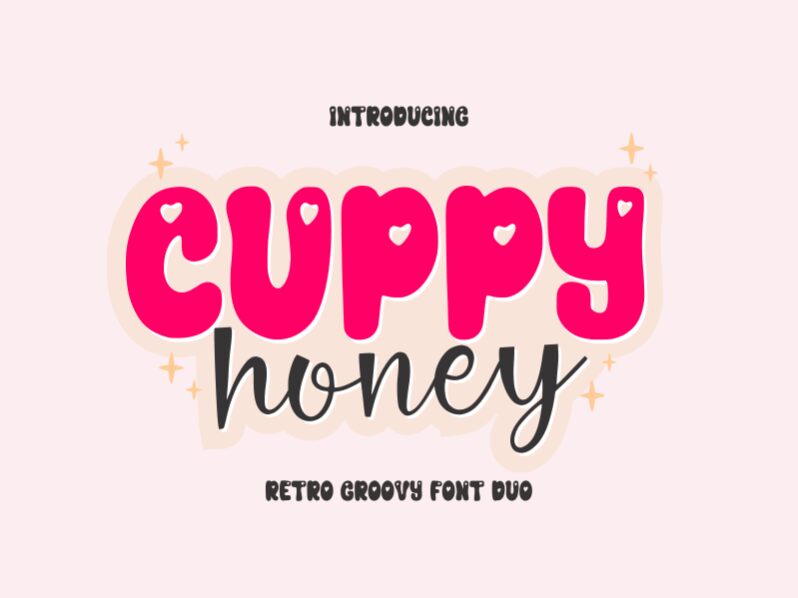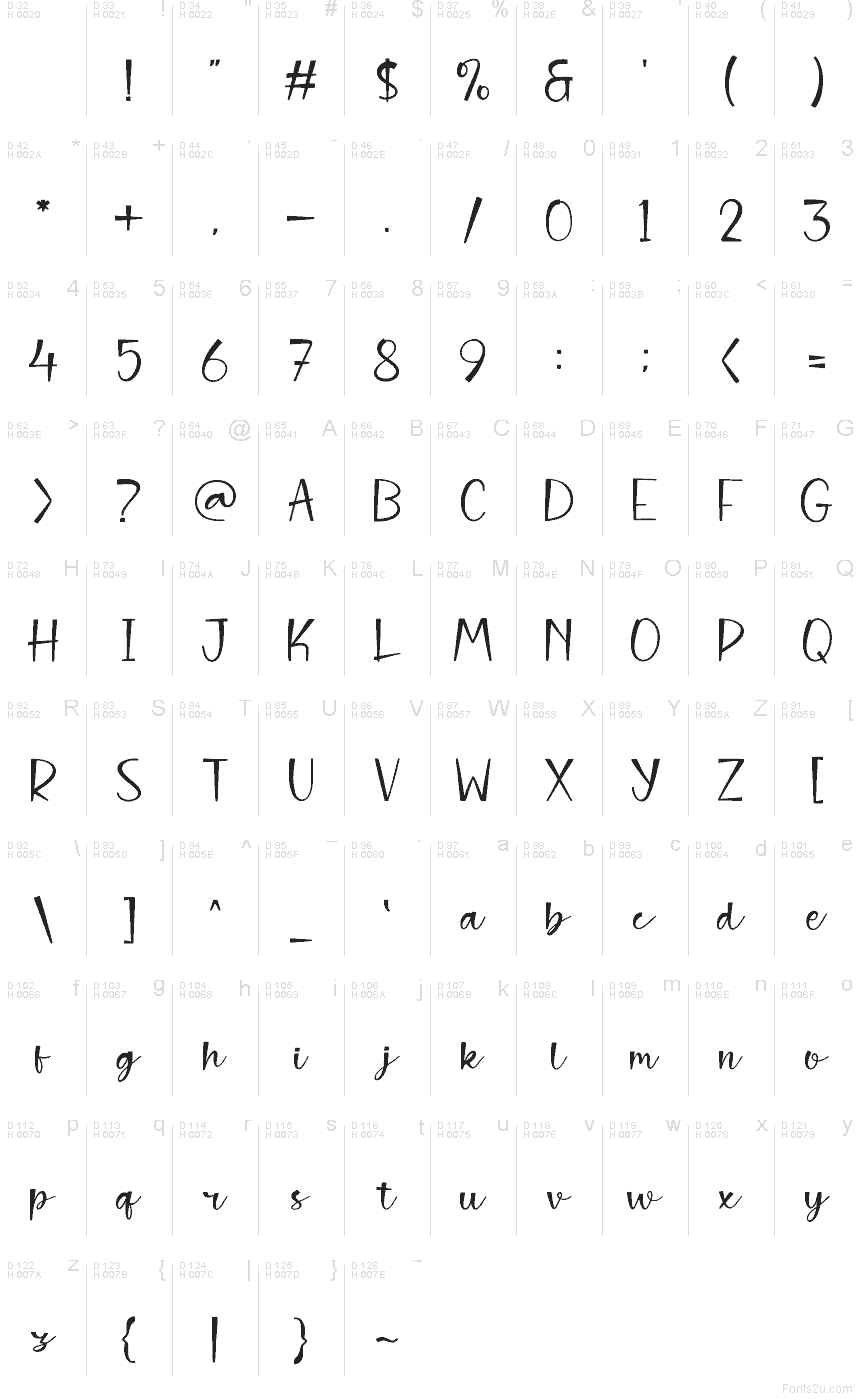
Cuppy Honney Script
Cuppy Honney Script font by Qwrtype Foundry is a free handwritten script typeface with a breezy, ink-brushed charm. Its tall, looping letters feel like they’ve been written in one relaxed motion, with just enough wobble to stay human while still reading clean at a glance. The strokes are smooth and slightly textured, giving logos, tags, and titles a warm, homemade feel without slipping into messiness.
Using Cuppy Honney Script, your text instantly feels friendly and personal, making this free font a natural fit for bakery and café branding, artisanal product labels, wedding stationery, quote graphics, and social media covers. It shines on packaging and invitations where you want a touch of sweetness and spontaneity. Pair it with a simple sans serif for body text and keep Cuppy Honney larger for headings so its flowing rhythm really shows.